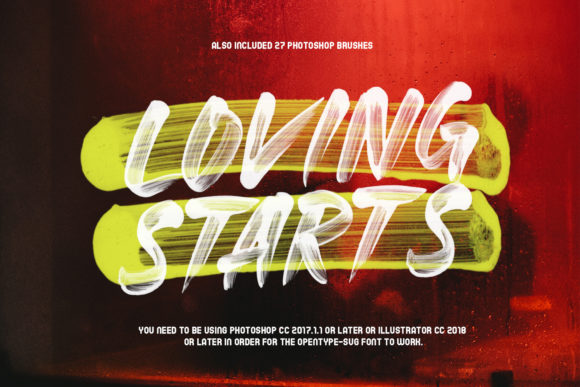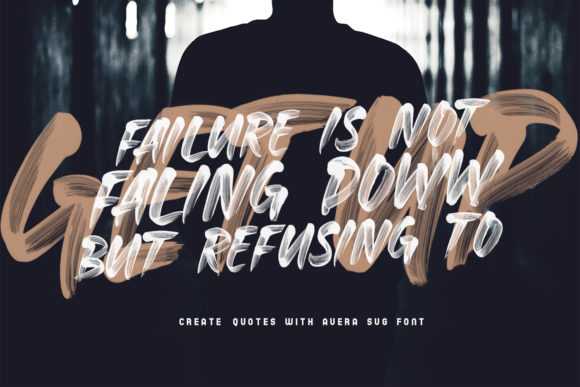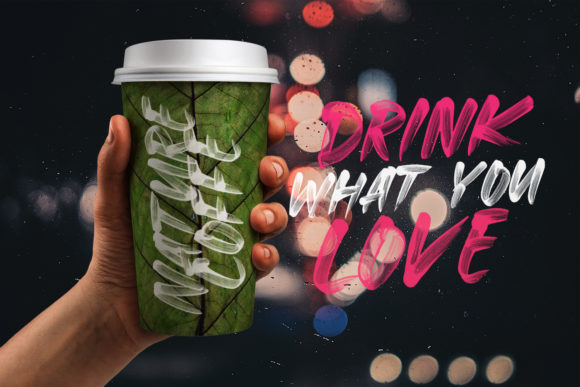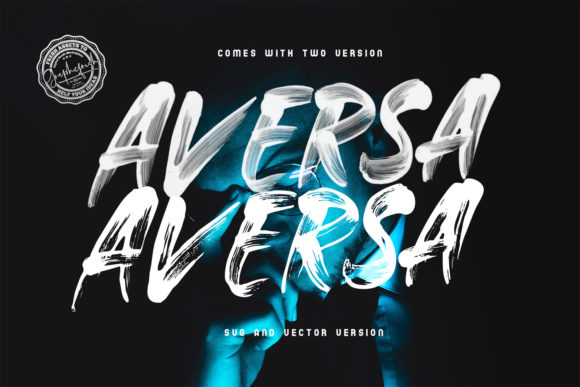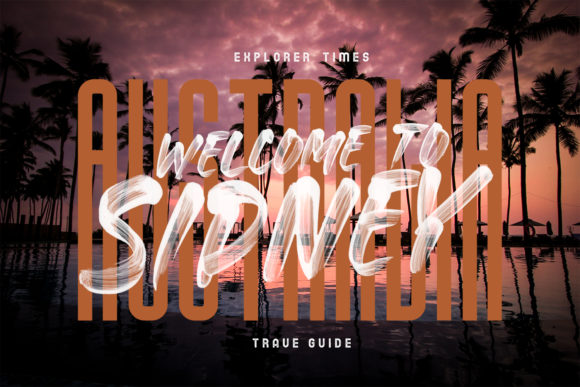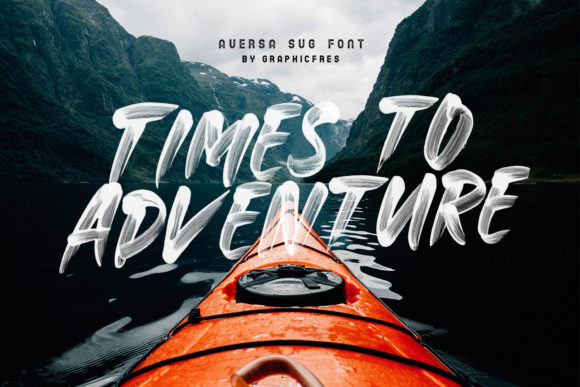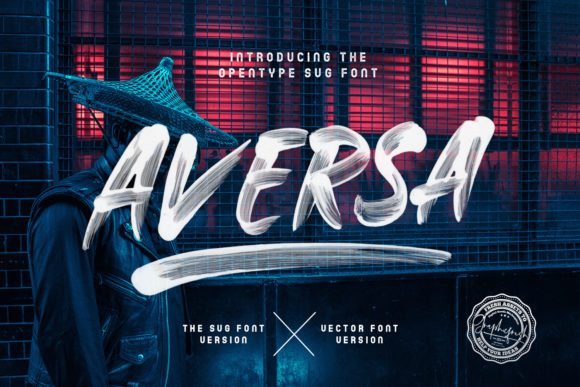
Aversa Font: Elevate Your Design with a Bold and Urban Display Font
Are you looking for a font that can add a touch of modernity and sophistication to your design projects? Look no further than Aversa Font, a bold and urban display font that is sure to make your designs stand out. In this article, we’ll take a closer look at Aversa Font, its features, and how you can use it to take your designs to the next level.
What is Aversa Font?
Aversa Font is a contemporary display font that is designed to add a bold and urban touch to your design projects. Its sleek and modern design makes it perfect for a wide range of applications, from branding and advertising to packaging and digital design. With its unique and eye-catching style, Aversa Font is sure to grab attention and leave a lasting impression.
Key Features of Aversa Font
- Bold and Urban Design: Aversa Font features a bold and urban design that is perfect for making a statement.
- Contemporary Feel: Its modern and sleek design gives it a contemporary feel that is sure to appeal to designers and crafters alike.
- Color Font (Opentype-SVG): Aversa Font is a color font (Opentype-SVG) that allows for a wide range of colors and gradients, giving you even more creative freedom.
Tips for Using Aversa Font
Here are some tips for getting the most out of Aversa Font:
- Experiment with Colors: Aversa Font’s color font (Opentype-SVG) format allows for a wide range of colors and gradients. Experiment with different colors and combinations to find the perfect look for your design.
- Use it as a Display Font: Aversa Font is designed to be used as a display font, so use it to add emphasis and impact to your designs.
- Pair it with Other Fonts: Aversa Font can be paired with other fonts to create a unique and interesting design. Experiment with different font combinations to find the perfect look.
Aversa Font is a bold and urban display font that is sure to elevate your design projects. With its modern and sleek design, compatibility with a range of popular design software, and color font (Opentype-SVG) format, Aversa Font is the perfect choice for designers and crafters looking to add a touch of sophistication and style to their designs. So why wait? Download Aversa Font today and start creating stunning designs that are sure to stand out!